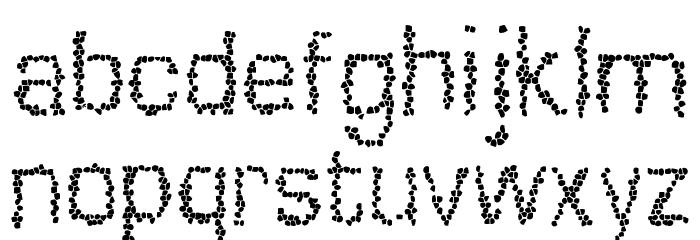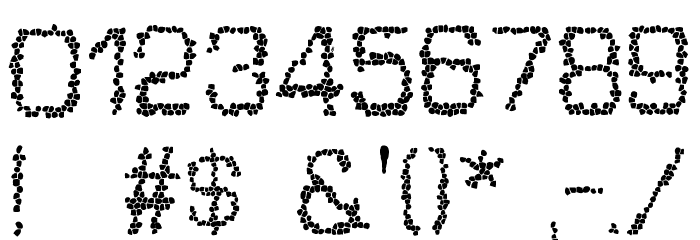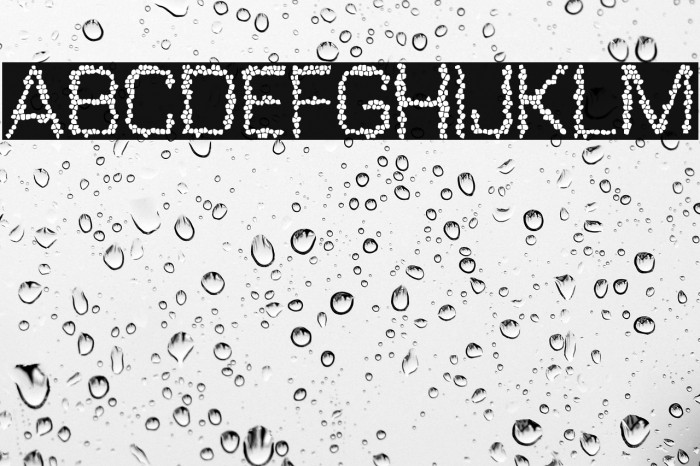
Mosaique Font
This font features a unique mosaic pattern, with each character composed of small, irregularly shaped dots that create a textured appearance. The uppercase and lowercase letters maintain a consistent height and width, providing a balanced and cohesive look. Numbers and special characters follow the same design, ensuring uniformity across all elements. The font's playful and artistic style makes it stand out, offering a visually engaging experience. Its distinct design is ideal for creative projects where a touch of whimsy and originality is desired. The characters are well-defined, with clear edges formed by the mosaic pattern, making them easily recognizable while still maintaining an artistic flair.
A mosaic-patterned font with a playful and artistic style.
- Proposed Projects: Ideal for creative projects such as posters, invitations, and artistic branding where a unique and engaging font is desired.